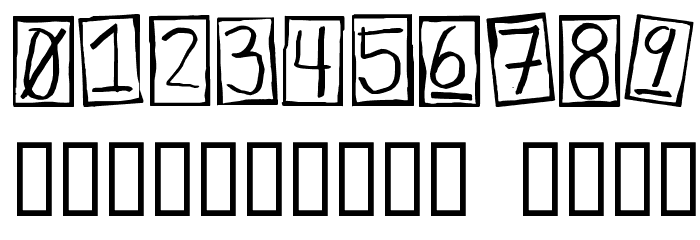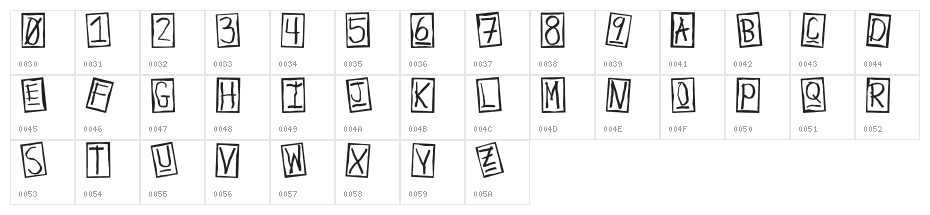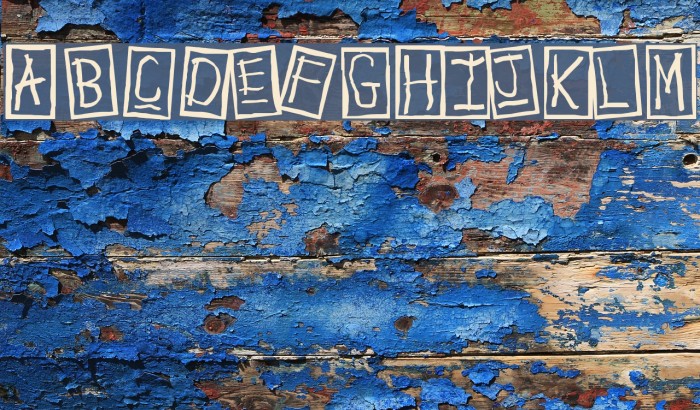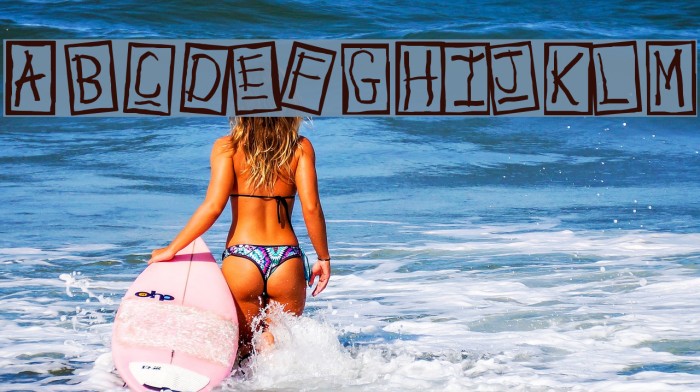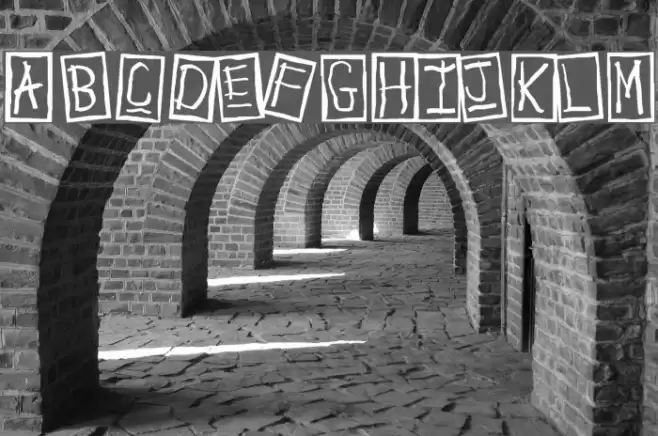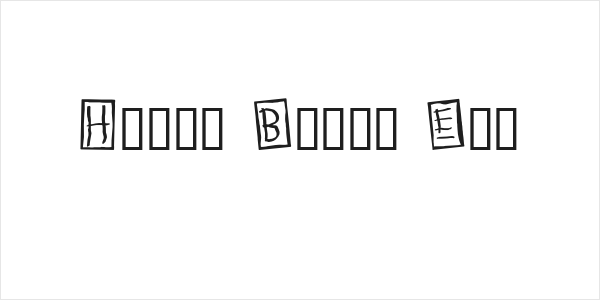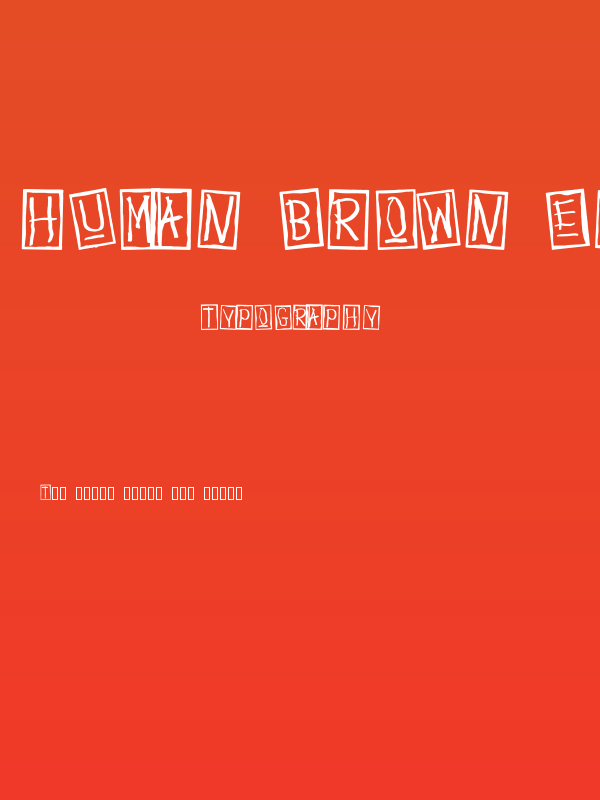
Human Brown Eye Font
Human Brown Eye Description
This font features a playful and quirky design, with each character enclosed in a hand-drawn, uneven square. The letters and numbers have a casual, handwritten style, with irregular strokes and varying line thicknesses that add to its whimsical charm. The overall appearance is reminiscent of doodles or sketches, making it ideal for creative and informal projects. The characters are slightly tilted and vary in size, contributing to a dynamic and lively feel. This font is perfect for projects that require a fun and informal touch, such as children's books, comic strips, or playful branding.
| Overall Style | Playful, Whimsical, Hand-drawn |
| Proposed Projects | Children's books, comic strips, playful branding, creative posters, informal invitations. |